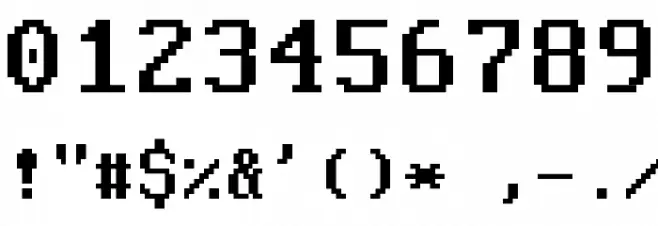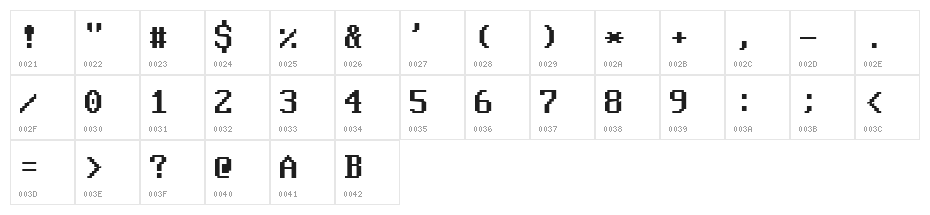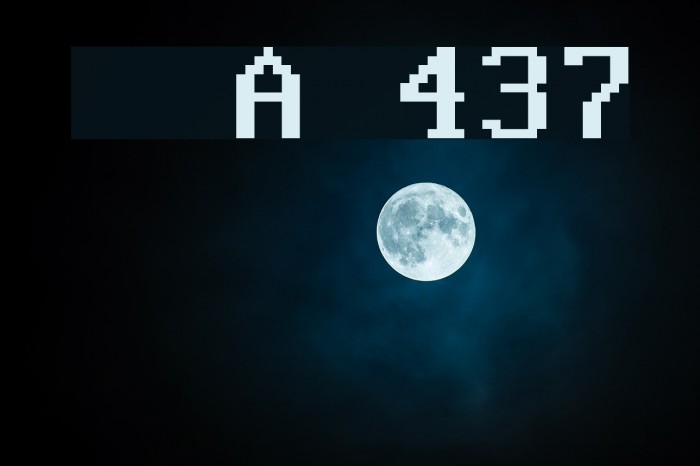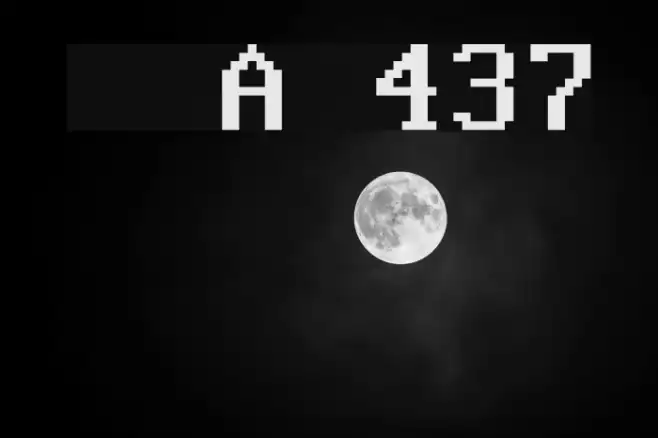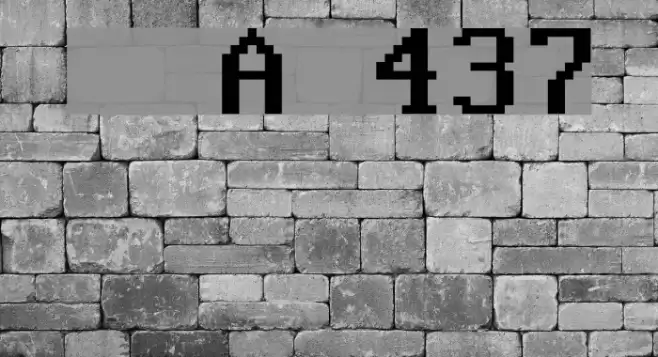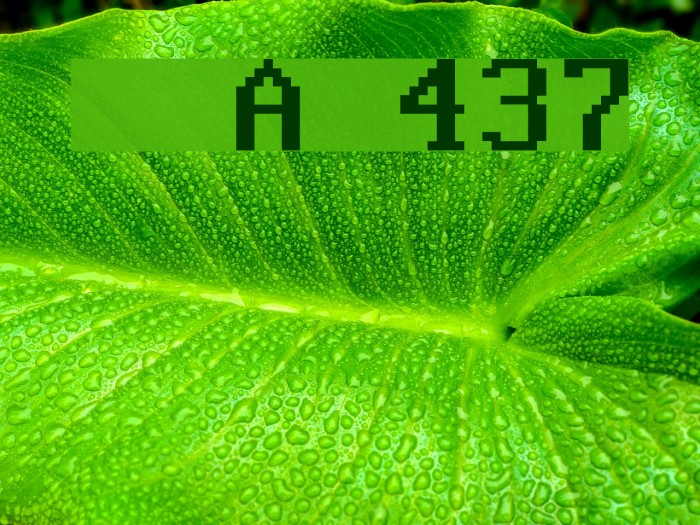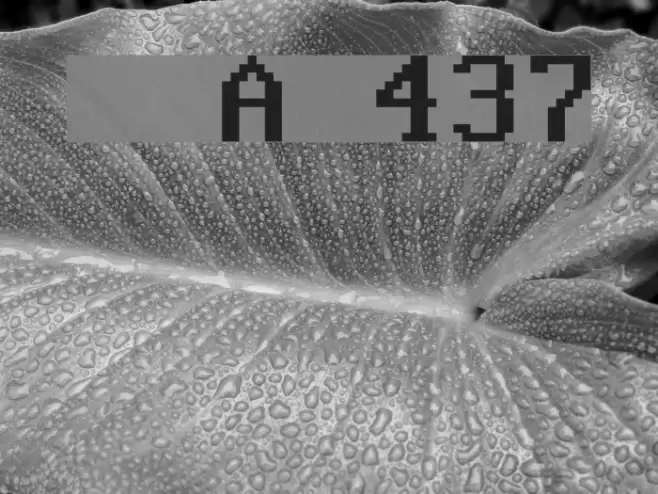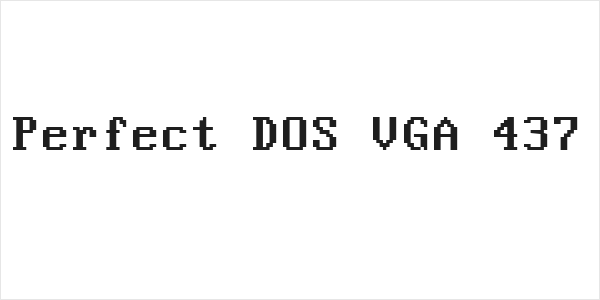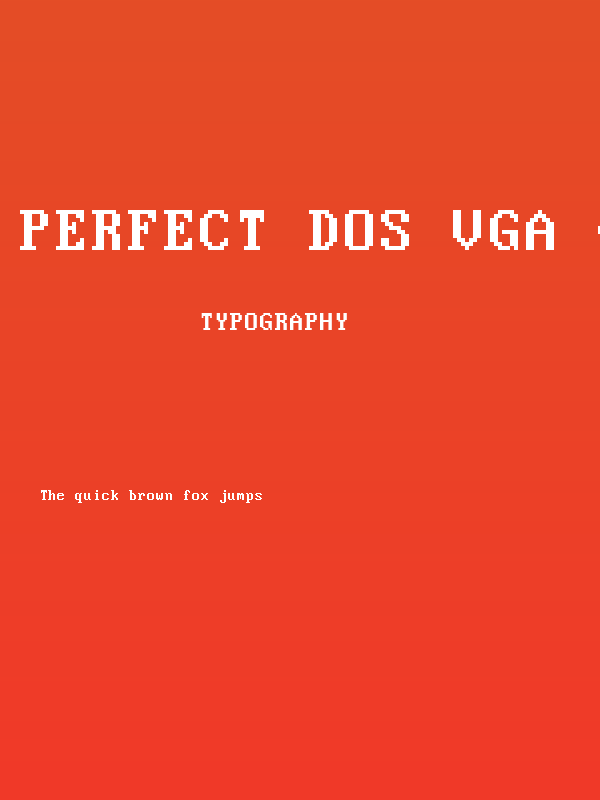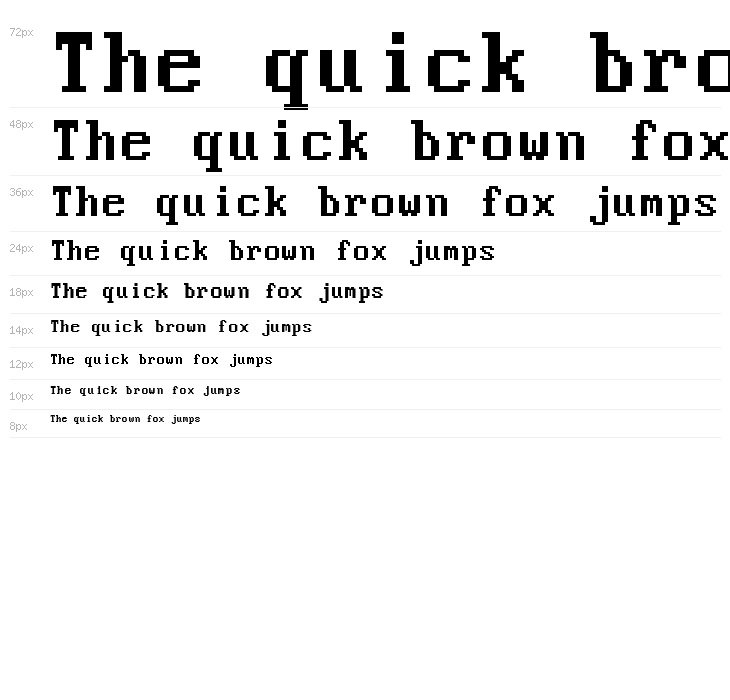
Perfect DOS VGA 437 Font
Perfect DOS VGA 437 Description
This font is a pixelated, monospaced typeface reminiscent of classic computer and DOS-era displays. Each character is designed with a grid-like structure, giving it a retro, digital appearance. The uppercase and lowercase letters maintain a consistent height, with a blocky and uniform look. The numerals and special characters follow the same pixelated style, ensuring a cohesive visual experience. This font evokes nostalgia for early computing and video game graphics, making it ideal for projects that aim to capture a vintage digital aesthetic.